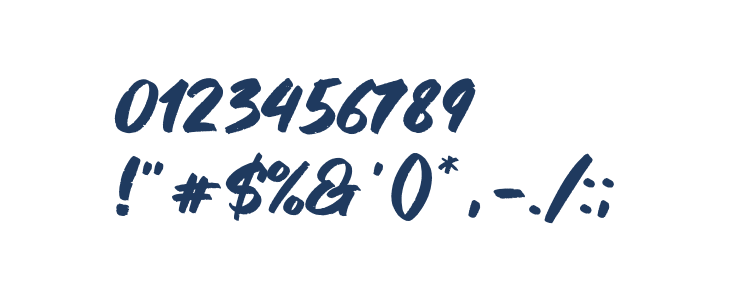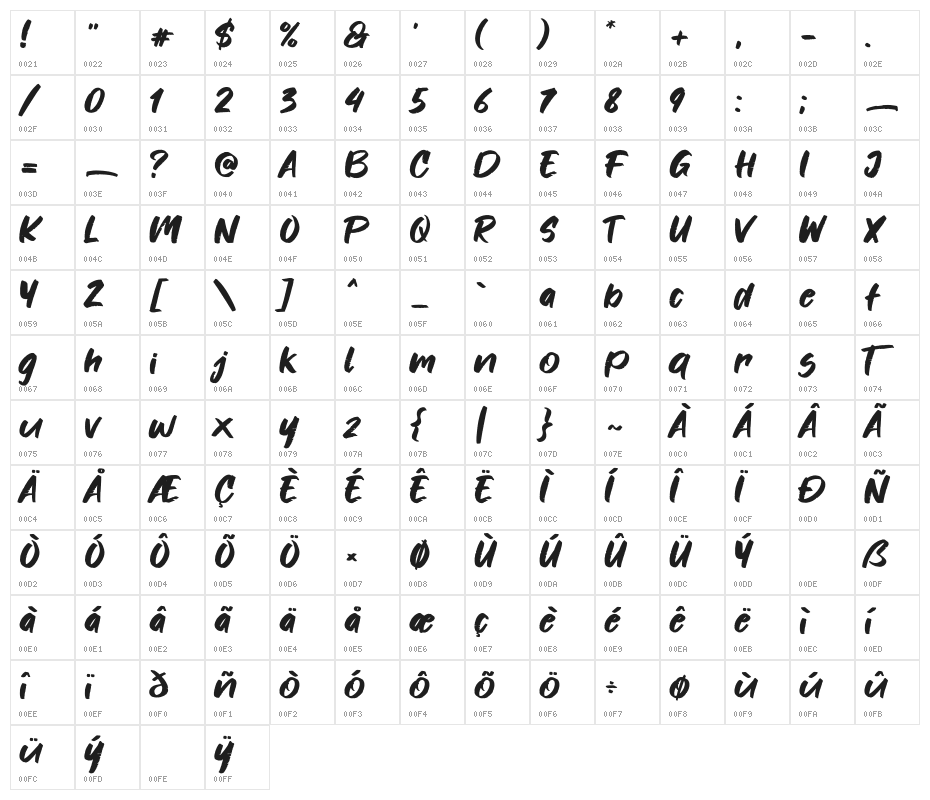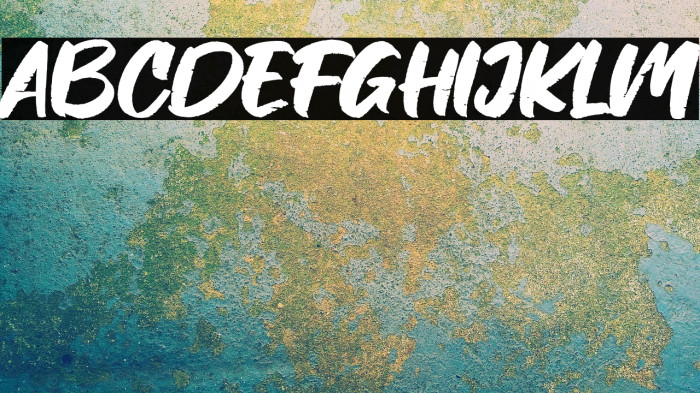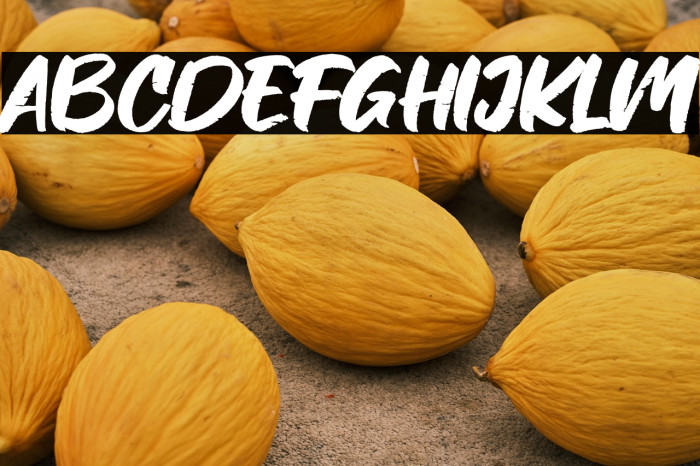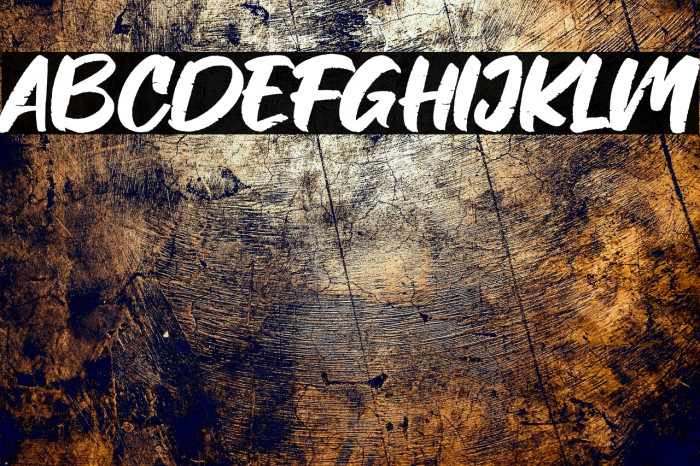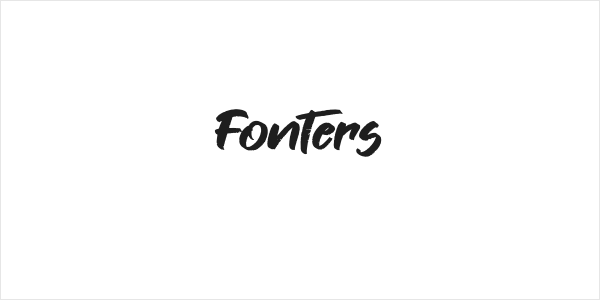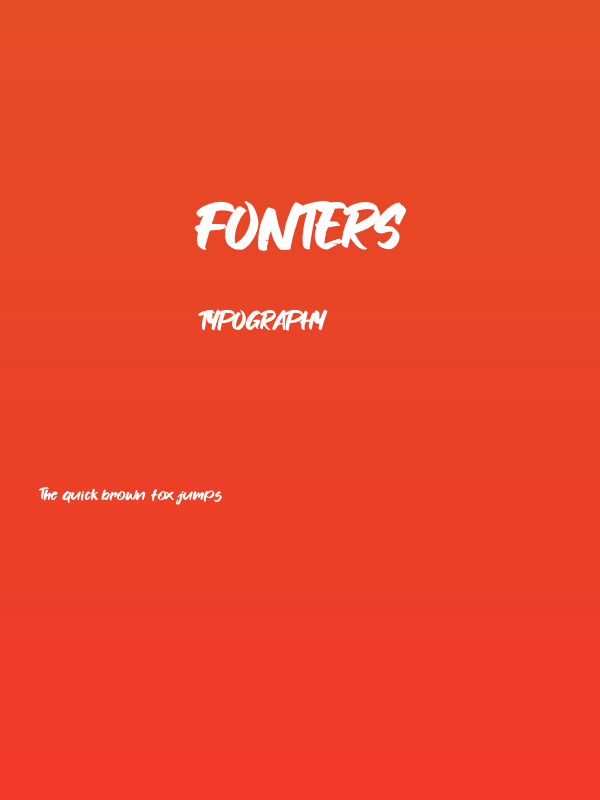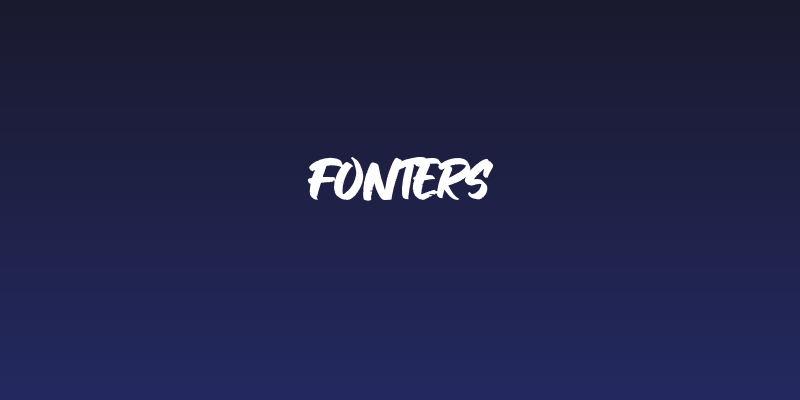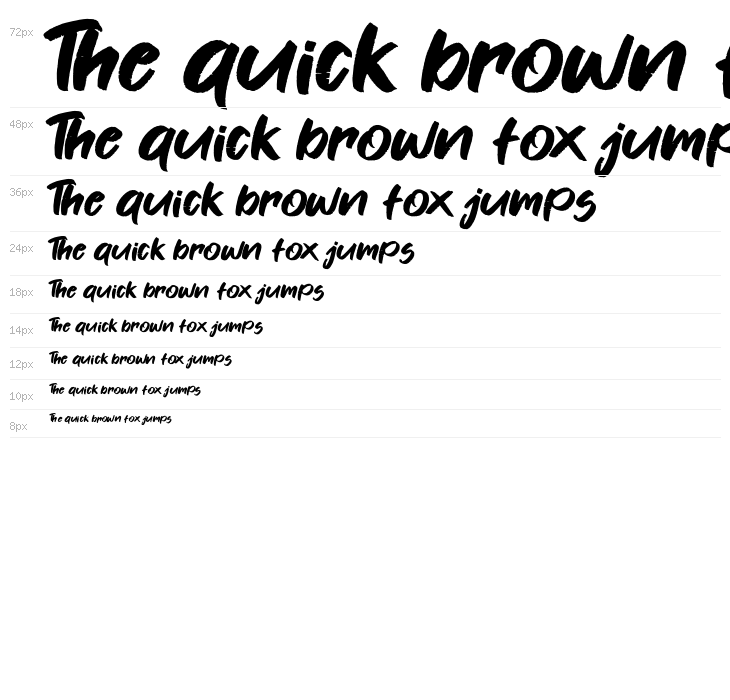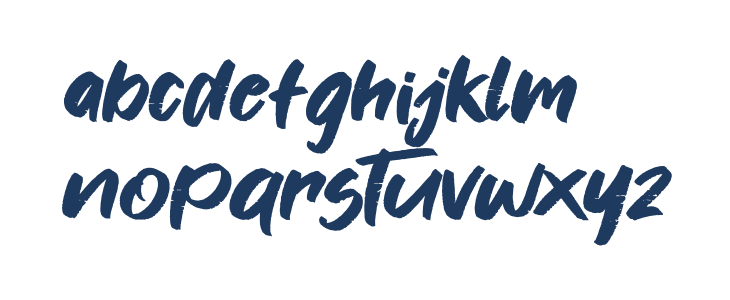
Fonters Font
Fonters Description
This font features a bold and dynamic brush script style, characterized by its energetic and fluid strokes. The letters are crafted with a sense of movement and spontaneity, giving it a lively and expressive appearance. The uppercase and lowercase letters maintain a consistent style, with a slightly irregular baseline that enhances its hand-drawn aesthetic. The numbers and special characters are equally bold and maintain the same brush-like quality, ensuring a cohesive look across all glyphs. This font is ideal for projects that require a personal and artistic touch, such as branding, posters, and creative designs.